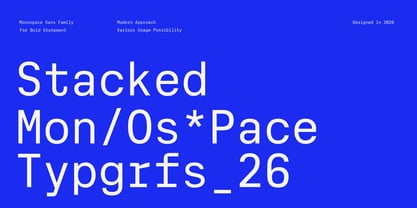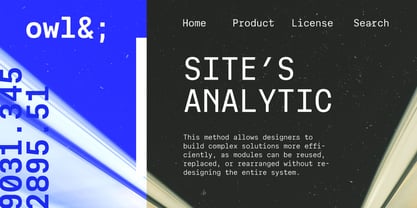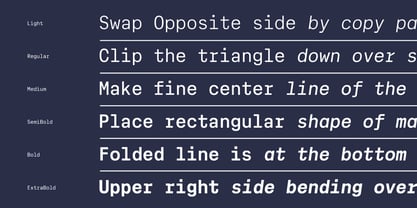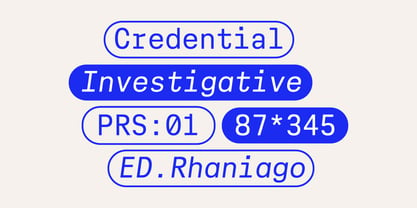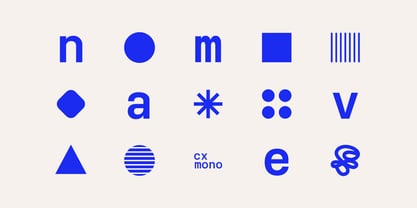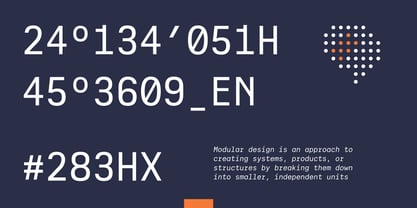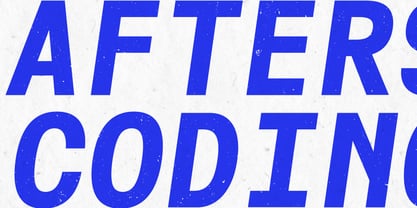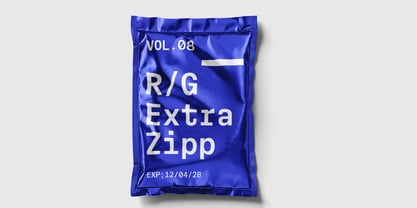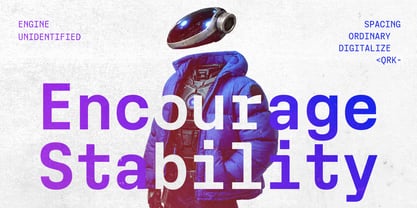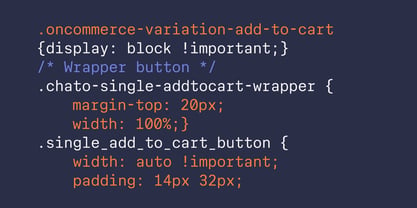
Cx Mono
von Eko Bimantara
Die Schriftfamilie Cx Mono wurde von Eko Bimantara entworfen und von Eko Bimantara veröffentlicht. Cx Mono enthält 14 Stile und Familienpaketoptionen. Mehr über diese Familie
Cx Mono is a modern sans-serif monospace typeface designed for clarity, balance, and contemporary aesthetics. Built with a clean modern grotesk sans serif structure, it delivers excellent readability across technical and visual contexts. Cx Mono features 12 styles ranging from Light to ExtraBold, each with matching italics, providing flexibility for hierarchy and emphasis without breaking the monospace rhythm. Ideal for coding environments, modern layouts, digital products, UI design, branding, and editorial use, Cx Mono combines functional precision with a refined modern character, making it a versatile choice for both professional and creative projects.
Eko Bimantara is a type designer from Indonesia. Always has an intention to creating fonts that not only look great but also perform across a wide range of mediums and also across wide range of theme. The goal is to give designers the tools to make their projects that speaks a lot with various expression. Eko Bimantara’s fonts are featured in everything from corporate identities to street art posters, and have numerous ideas and concept ready to expand for fresh fonts for years further.